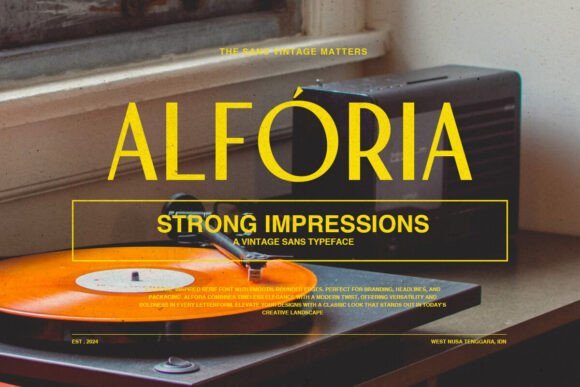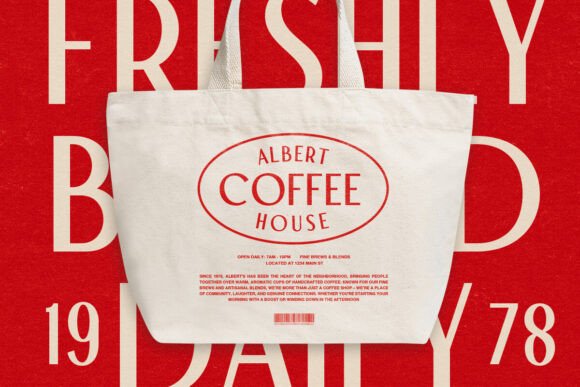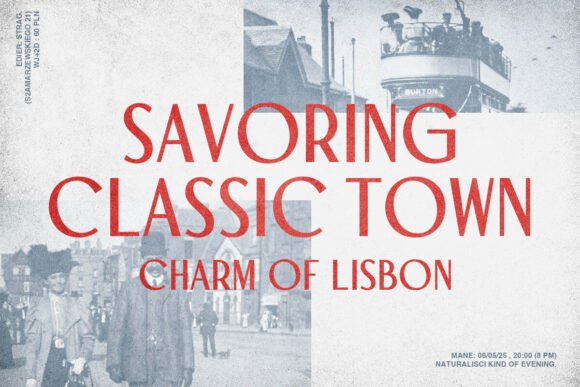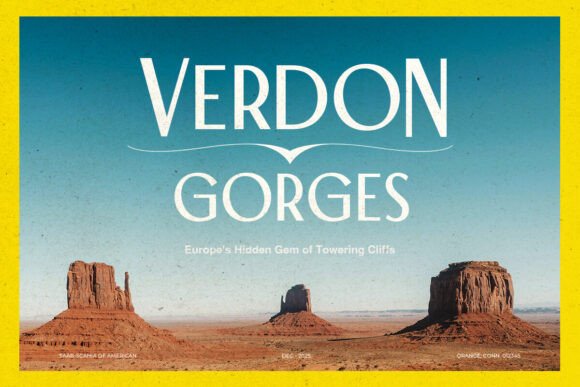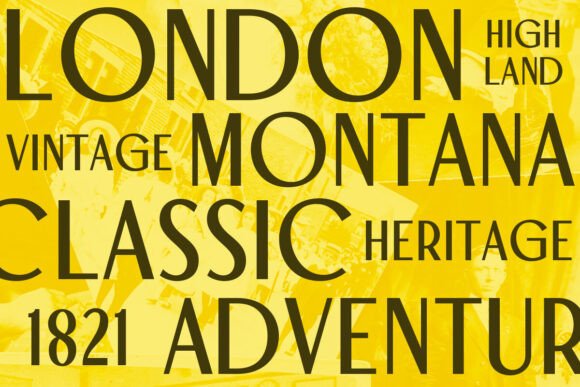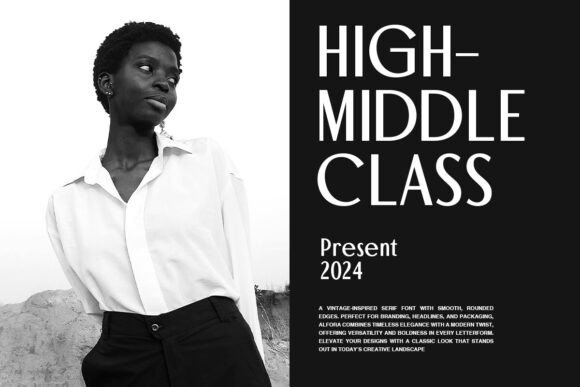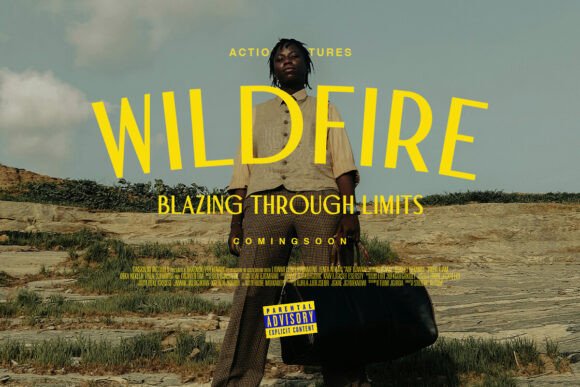
Timeless Elegance: The Allure of the Alforia Font
Have you ever stared at a vintage movie poster, mesmerized by the classic typography and the era it evokes? That’s exactly the kind of creative moment that inspired the design of the Alforia Font – a vintage sans with a classic and tall style that’s perfect for capturing the essence of bygone eras.
The Alforia Font is a versatile and elegant typeface that can be used for a wide range of purposes, from eye-catching posters and movie titles to meaningful quotes and branding that exudes a sense of nostalgia. Its multi-language support makes it an invaluable asset for designers looking to create global campaigns or communicate with diverse audiences.
- Font Family: Alforia Font comes in multiple weights and styles, including Regular, Light, Italic, and Bold.
- Unique Characteristics: Alforia Font features a unique, hand-drawn design with a mix of geometric and organic elements, giving it a distinctive and eye-catching look.
- Language Support: The font supports a wide range of languages, including Latin, Cyrillic, and Greek alphabets, making it a versatile choice for multilingual projects.
Alforia Font Review
Overall, I’m quite impressed with the Alforia Font. It’s a beautiful, modern sans-serif font that works well for a variety of applications. ✨
- Unique, modern aesthetic: Alforia Font has a clean, sleek look that’s perfect for modern designs.
- Wide language support: This font supports a wide range of languages, making it a great option for global projects.
- High-resolution support: Alforia Font looks great at all resolutions, from small mobile screens to large print designs.
- May not be ideal for classic designs: Alforia Font is a modern font, so it may not be the best choice for classic or traditional designs.
- Some characters may be too thin: A few characters in the font may appear too thin or delicate, which can make them difficult to read.
Overall, I think Alforia Font is a great addition to any designer’s toolkit. While it may have some limitations, its unique look and wide language support make it a versatile and useful font. If you’re looking for a modern, stylish font for your next project, Alforia Font is definitely worth considering. ⚠️
Use Alforia Font to add a touch of elegance and sophistication to your designs.
Combine Alforia Font with other fonts to create a unique and visually appealing typography.
Experiment with different font sizes and colors to create a striking visual effect.
Alforia Font is ideal for:
- Editorial and publishing projects.
Alternatives to Alforia Font
Oswald is a sans-serif font that is similar to Alforia Font in terms of its modern and clean design. However, Oswald has a more geometric and industrial feel, making it suitable for tech-related and corporate designs. Use Oswald when you need a font that is easy to read and conveys a sense of professionalism.
Comparison: Oswald has a stronger, more angular look compared to Alforia Font, making it more suitable for bold and modern designs.
Lato is a sans-serif font that is designed to be highly legible and versatile. It has a clean and modern look, making it similar to Alforia Font. However, Lato has a softer and more rounded feel, making it suitable for designs that require a friendly and approachable tone. Use Lato when you need a font that is easy to read and conveys a sense of approachability.
Comparison: Lato has a more rounded and friendly feel compared to Alforia Font, making it more suitable for designs that require a softer tone.
Montserrat is a sans-serif font that is inspired by the urban landscape of Montserrat, a mountain range in Argentina. It has a clean and modern look, making it similar to Alforia Font. However, Montserrat has a more condensed and energetic feel, making it suitable for designs that require a sense of dynamism and movement. Use Montserrat when you need a font that is energetic and conveys a sense of movement.